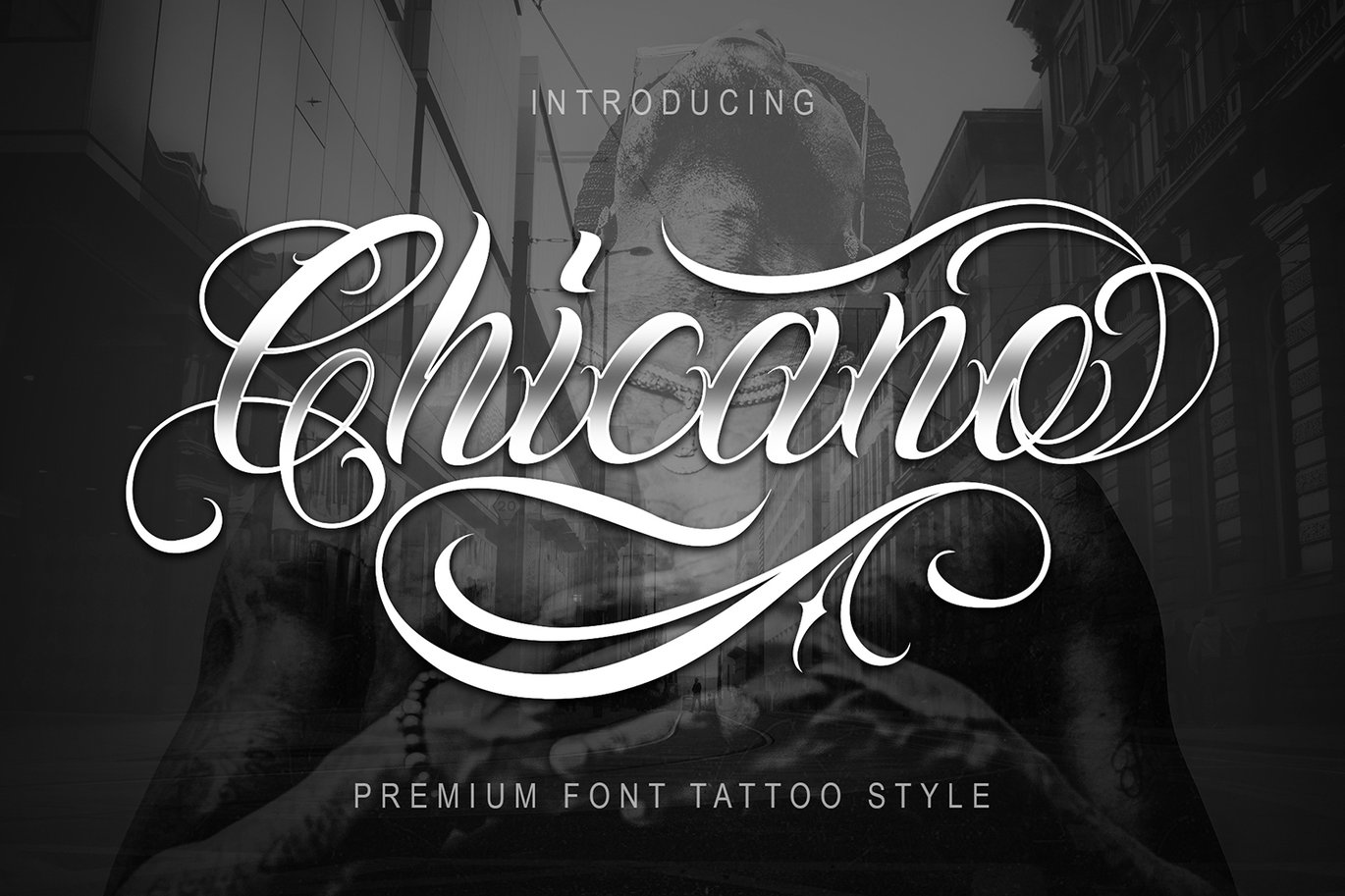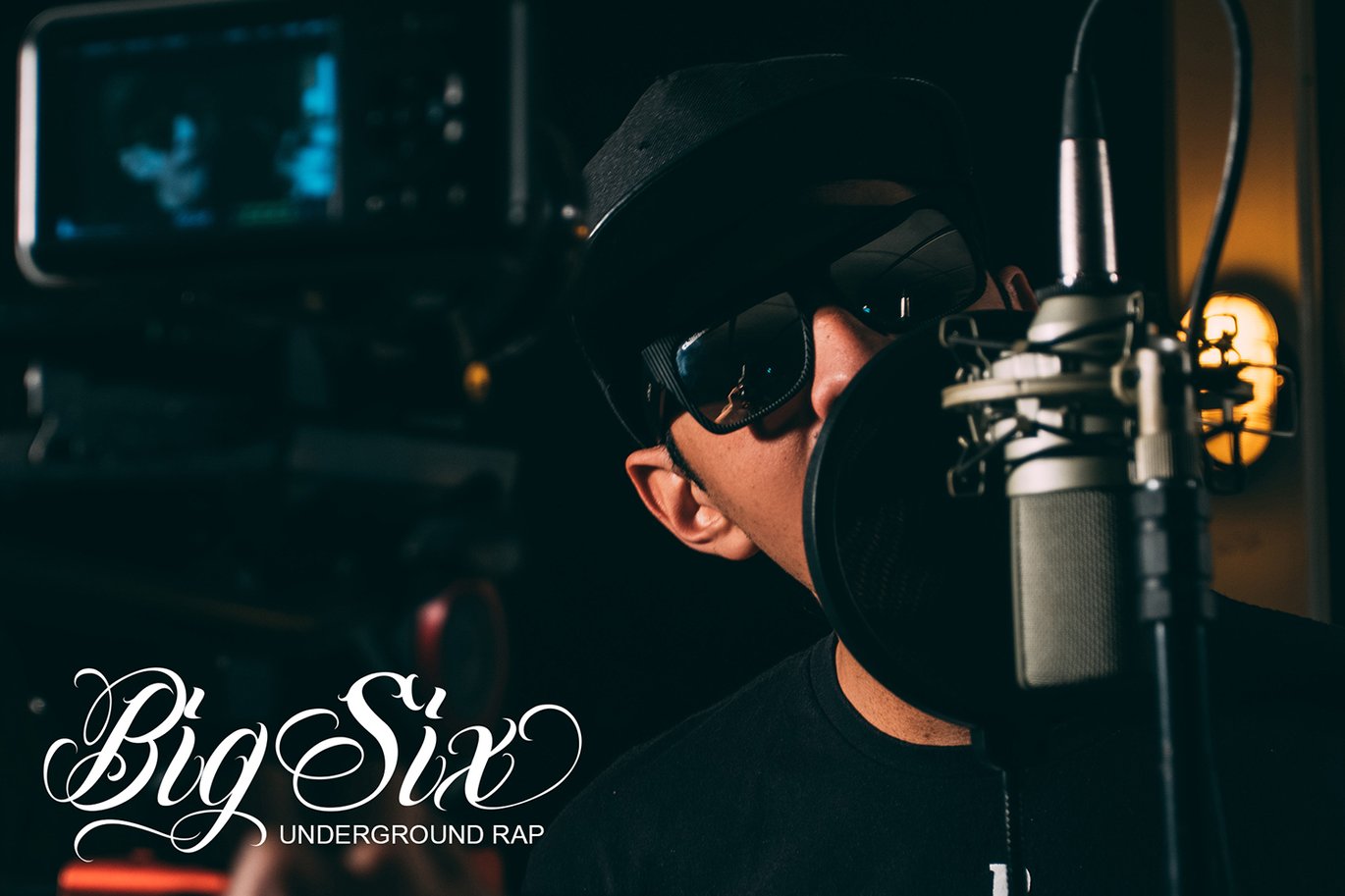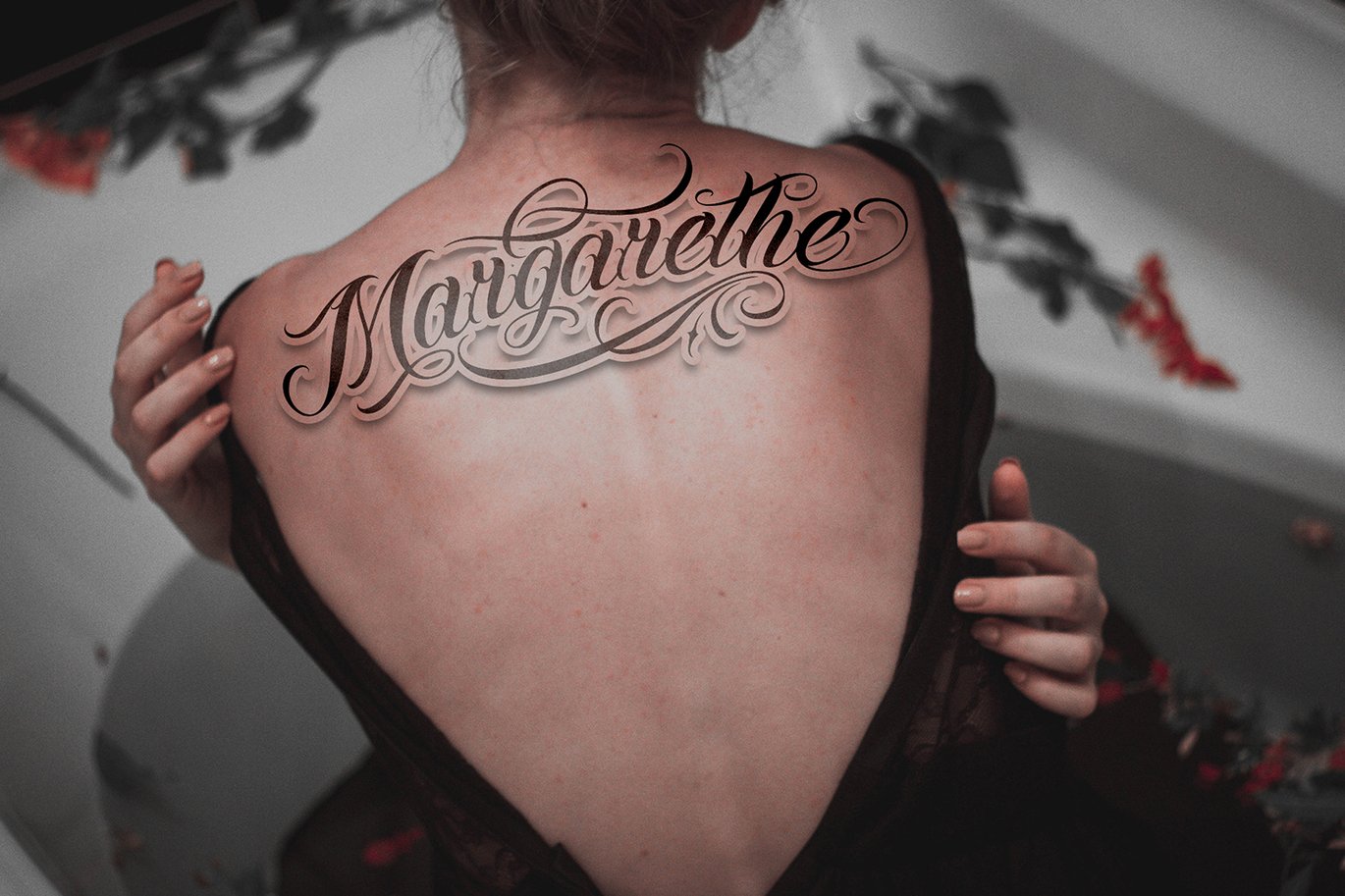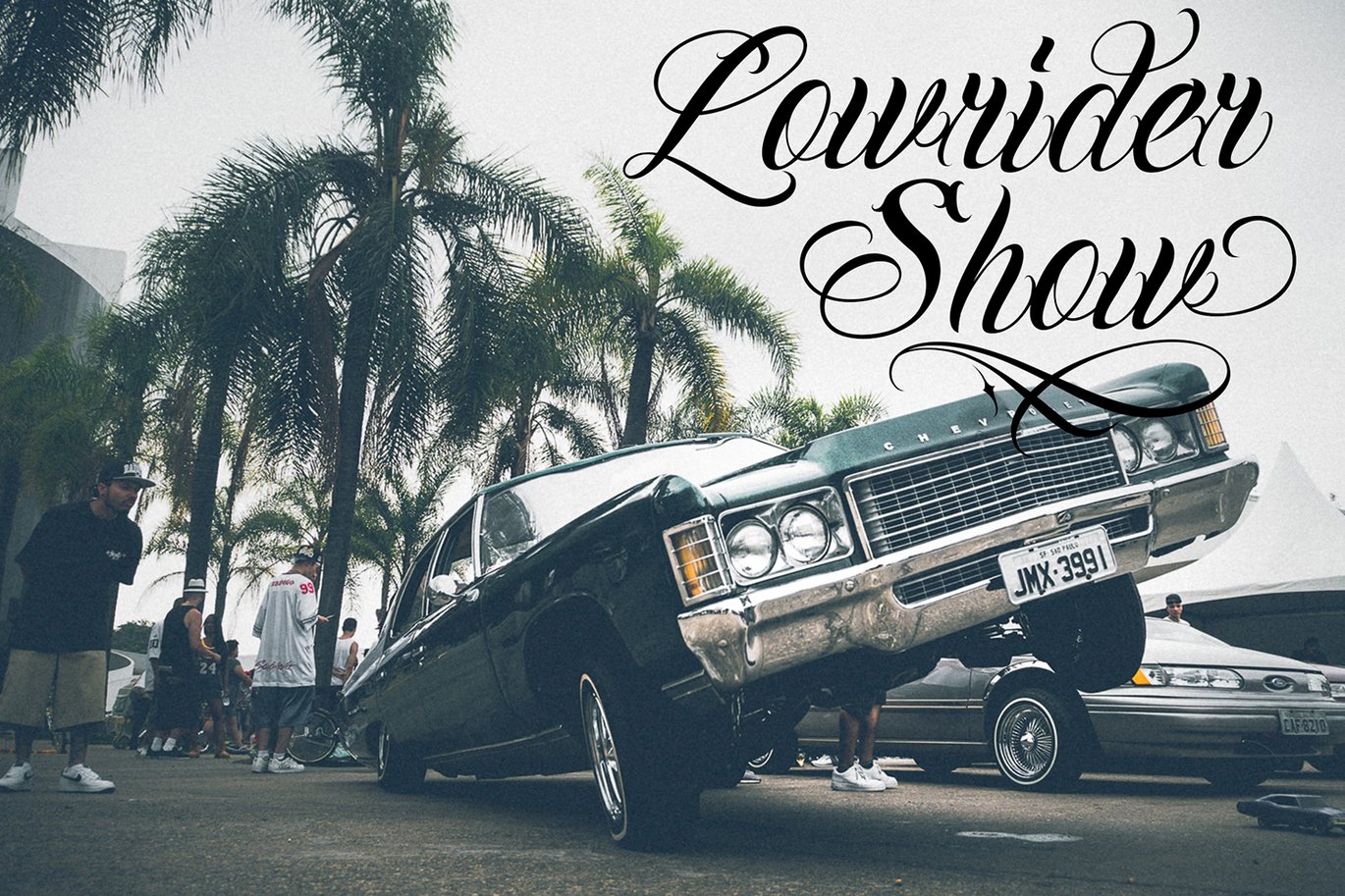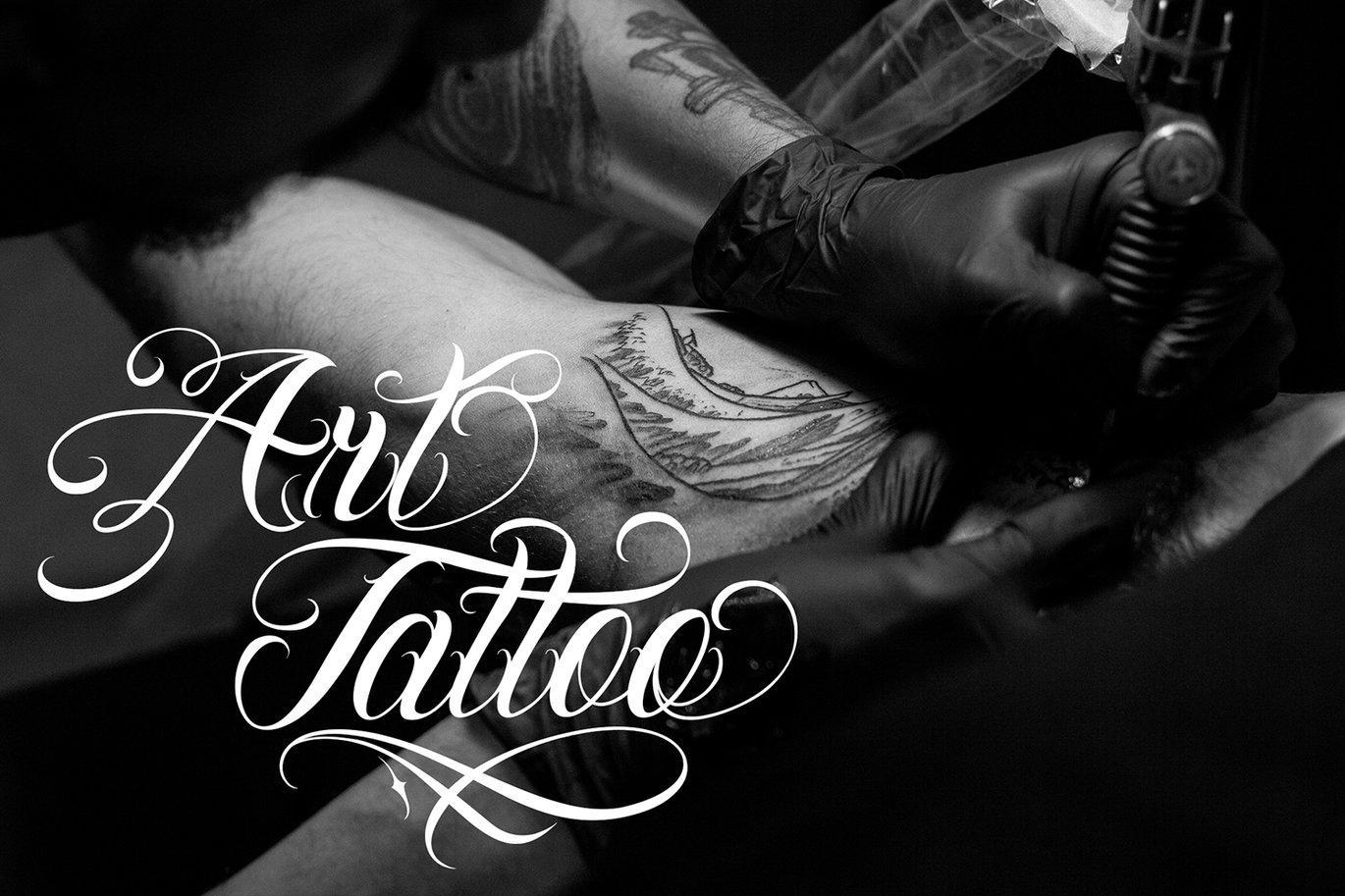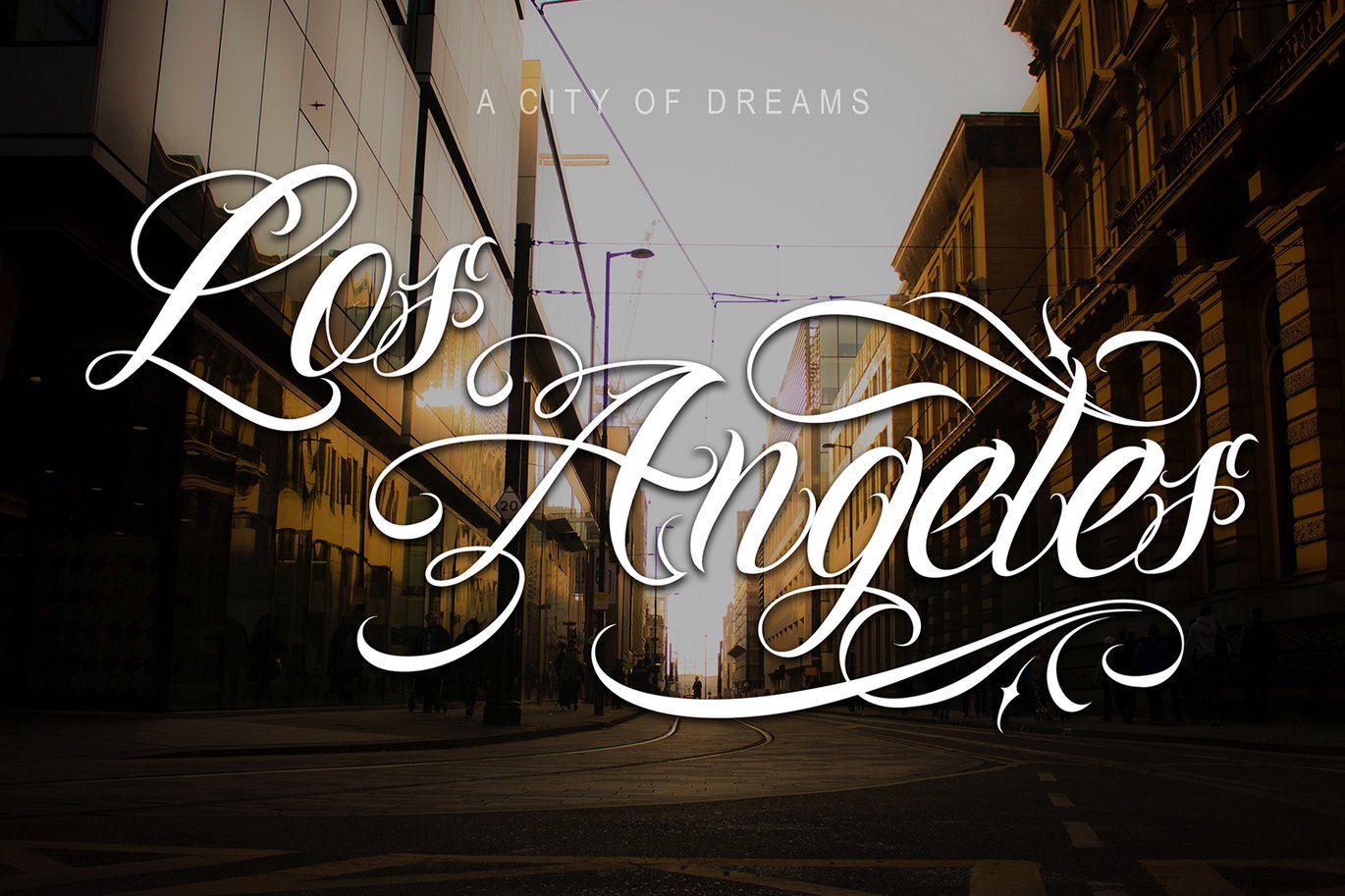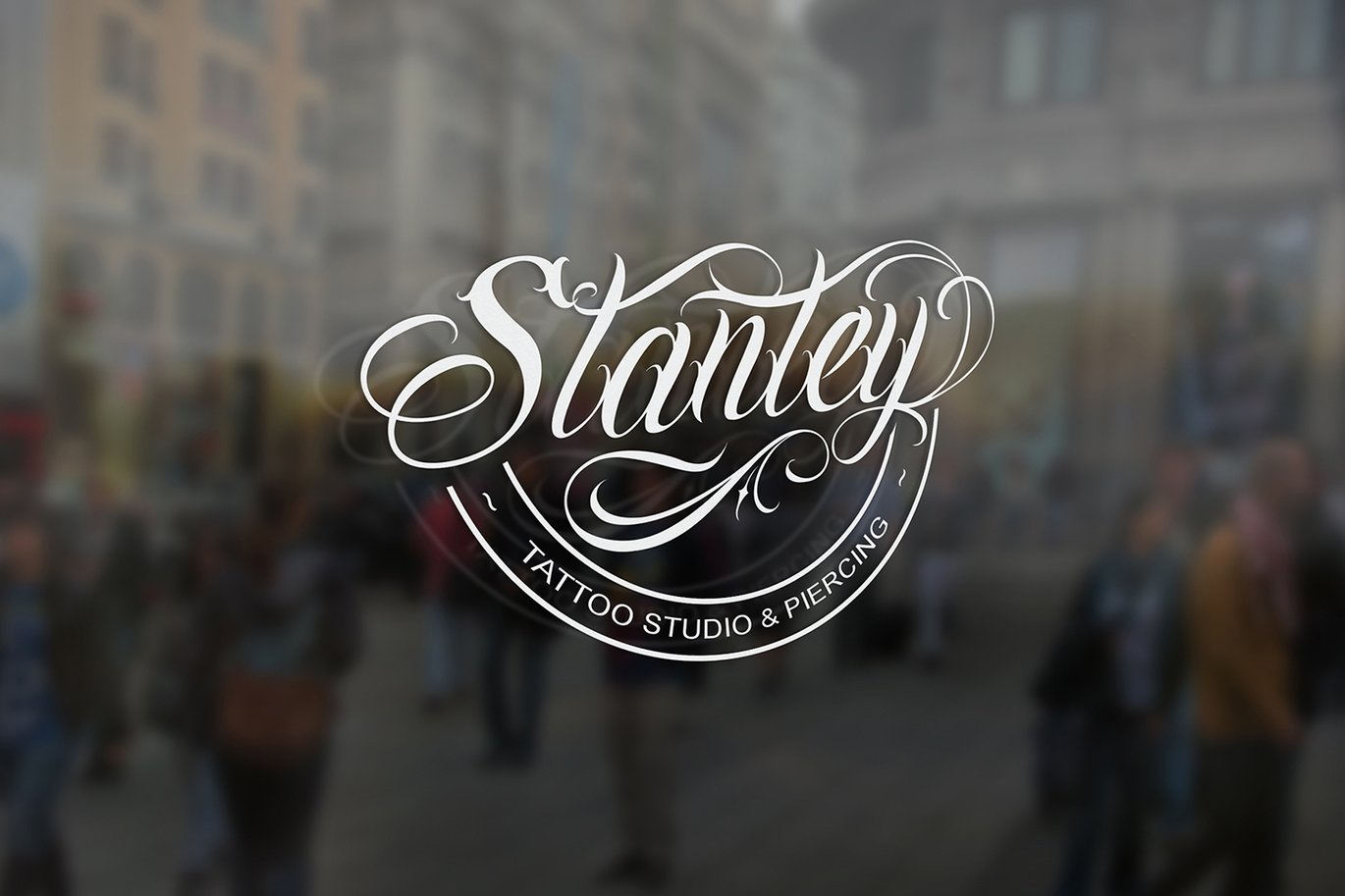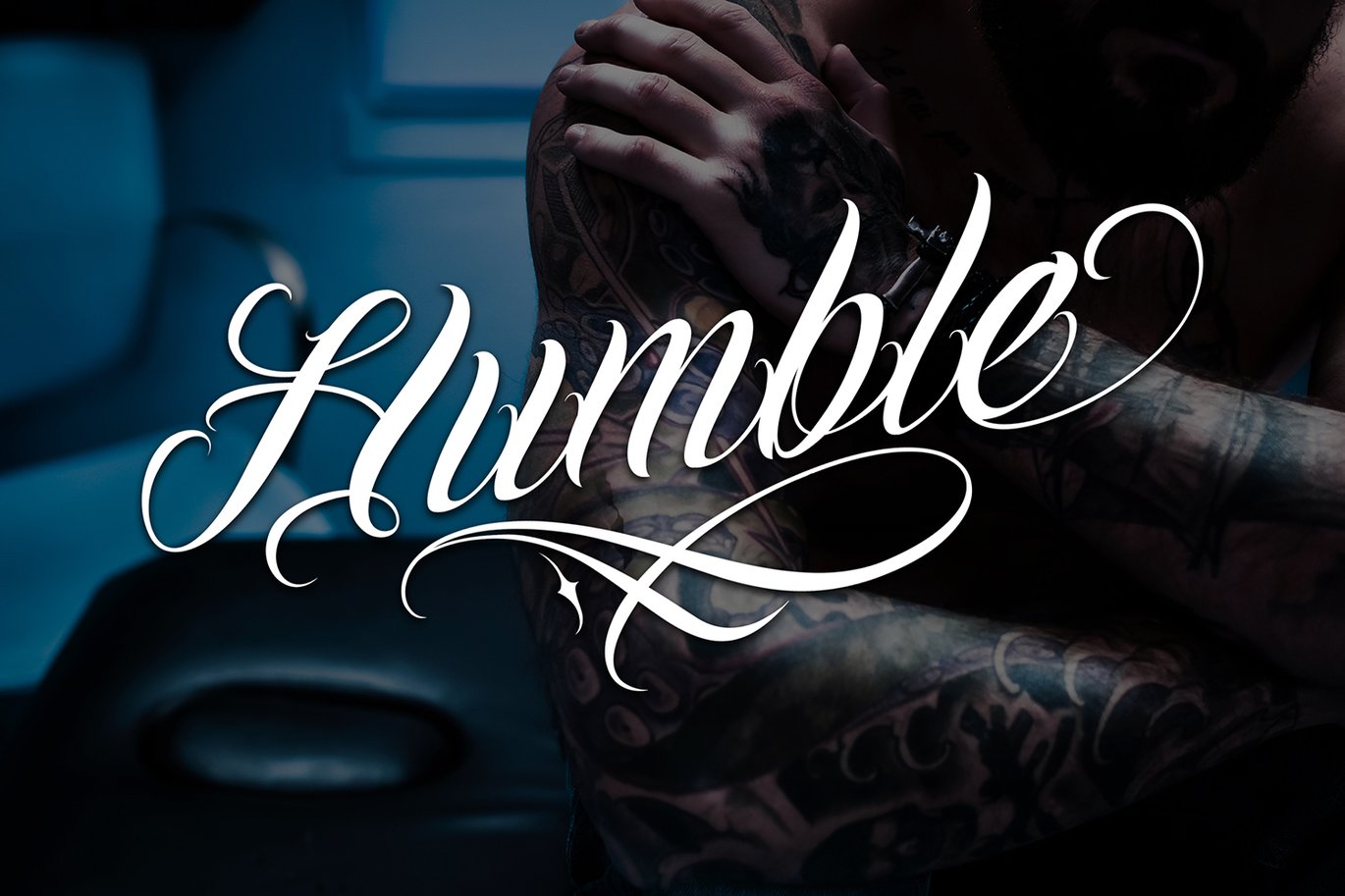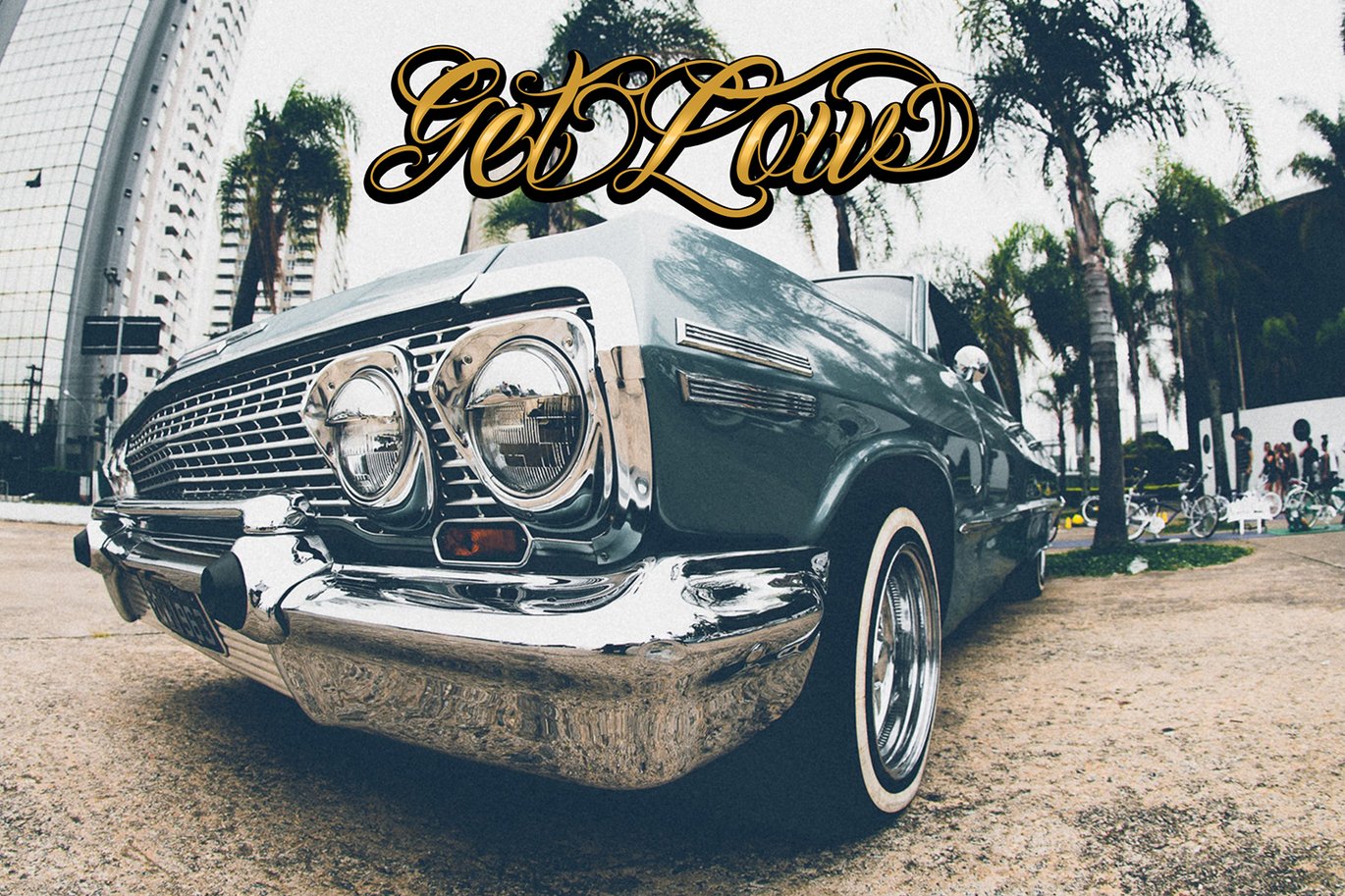
Chicano Font | Tattoo Style
Chicano includes uppercase and lowercase letters, numerals, a large range of punctuation and ligatures. All lowercase letters include ending swashes and alternative font.